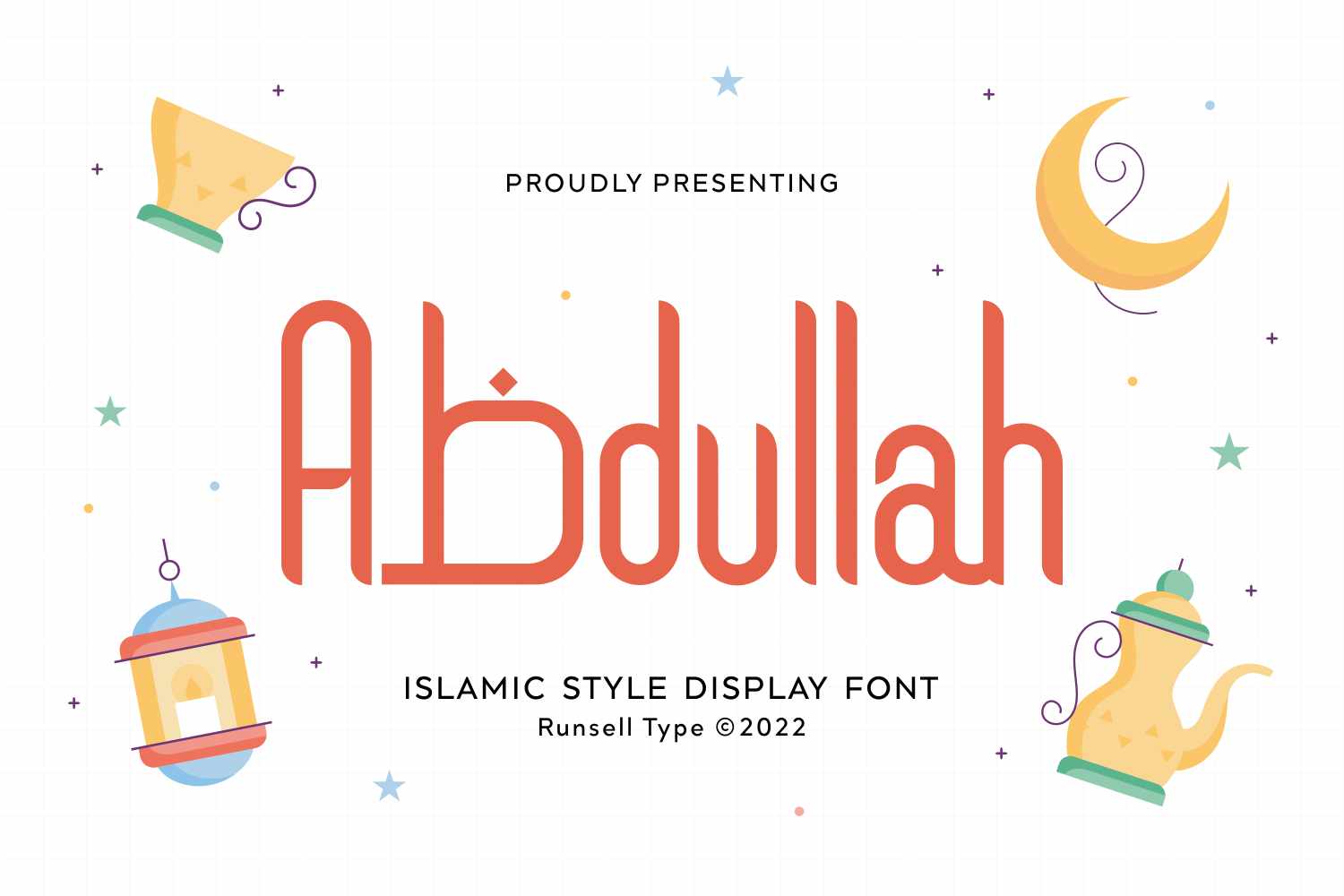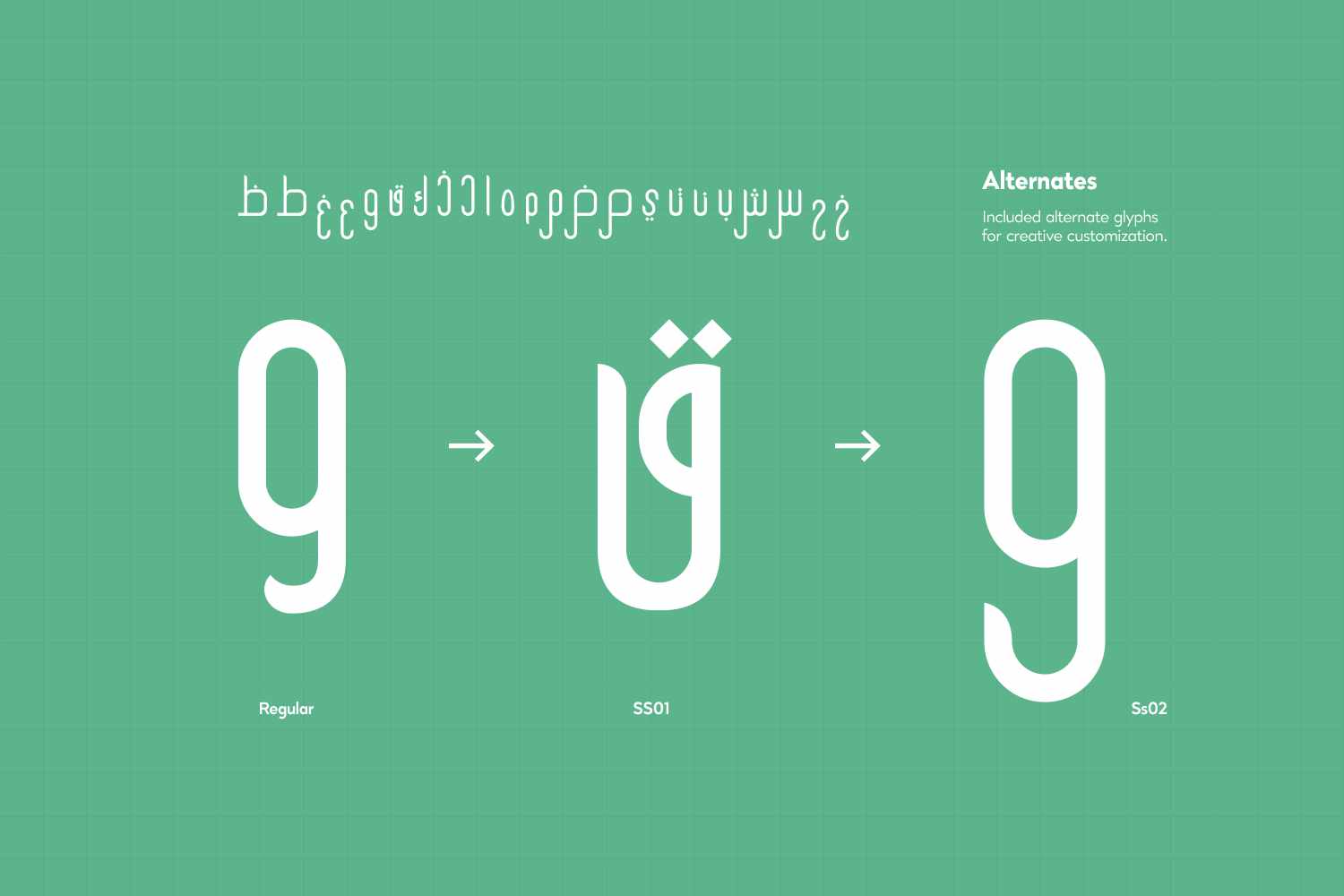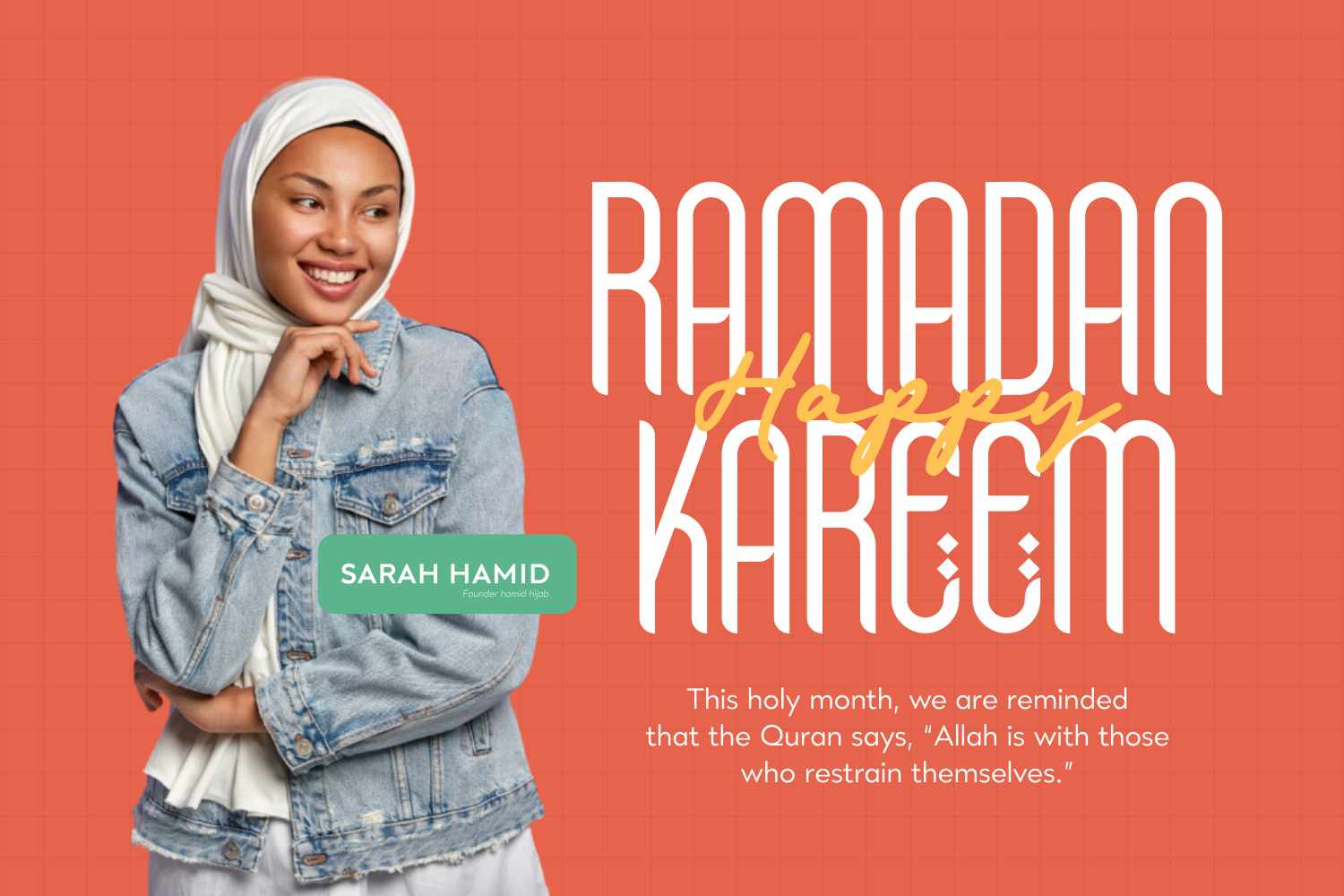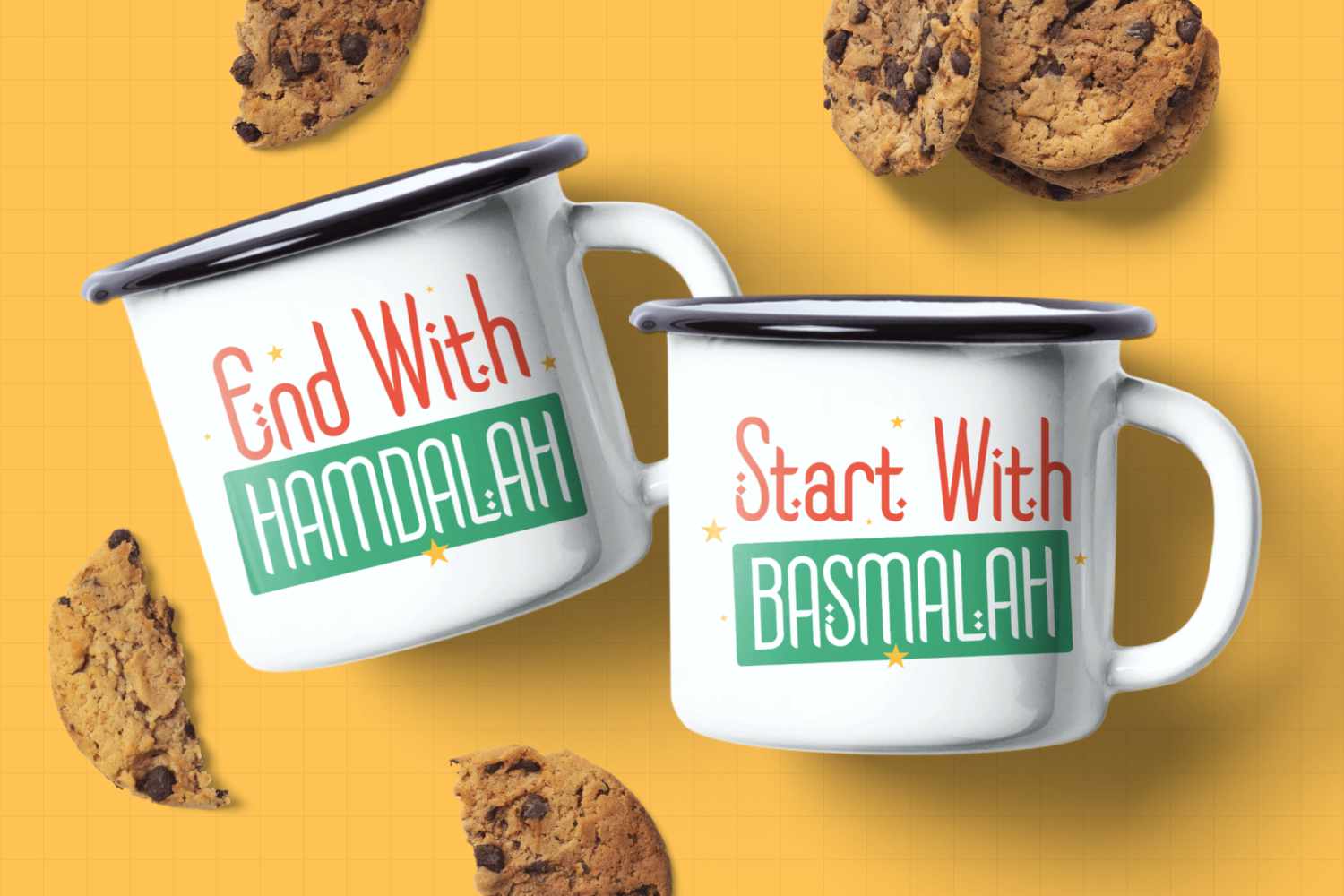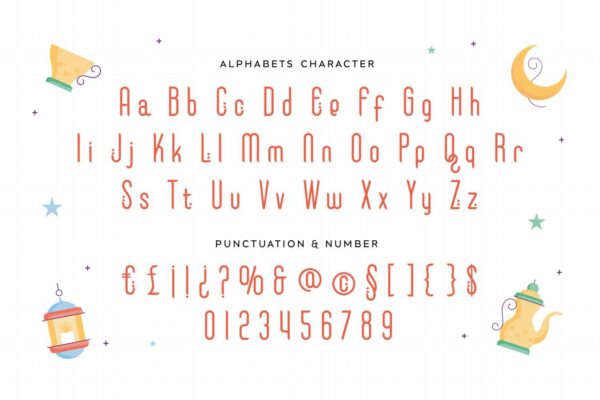
Abdullah is a playful and modern Islamic-style display font inspired by Middle Eastern calligraphy fused with minimalist Latin letterforms. With its elongated stems, soft curves, and custom alternate characters, this font offers a delightful blend of contemporary geometry and Arabic typographic influence. It’s highly legible yet full of character—perfect for festive occasions like Ramadan, Eid, or Islamic-themed merchandise and branding.
Equipped with ligatures and stylistic sets, Abdullah allows for expressive and customized layouts while maintaining harmony in every composition. Whether used for packaging, children’s products, mugs, or digital invitations, this font injects charm and personality into every letter, making it a warm, friendly option for modern Muslim creatives.
Abdullah